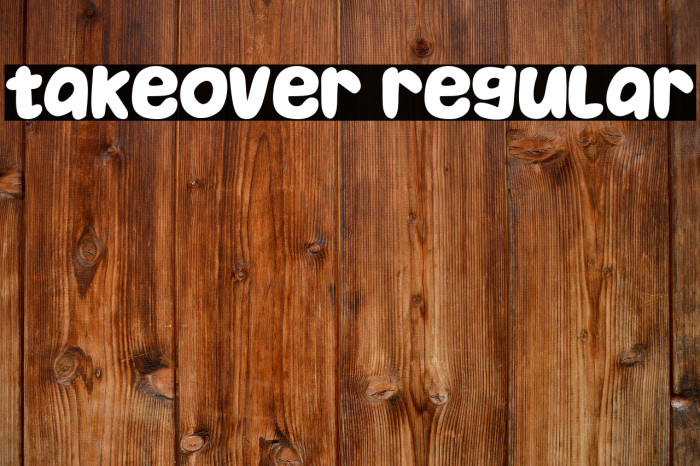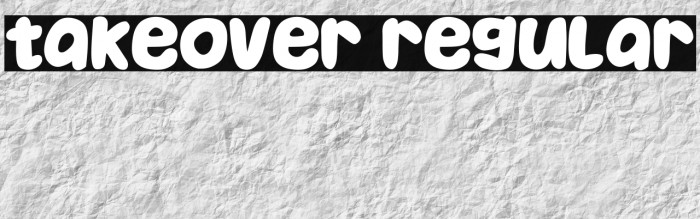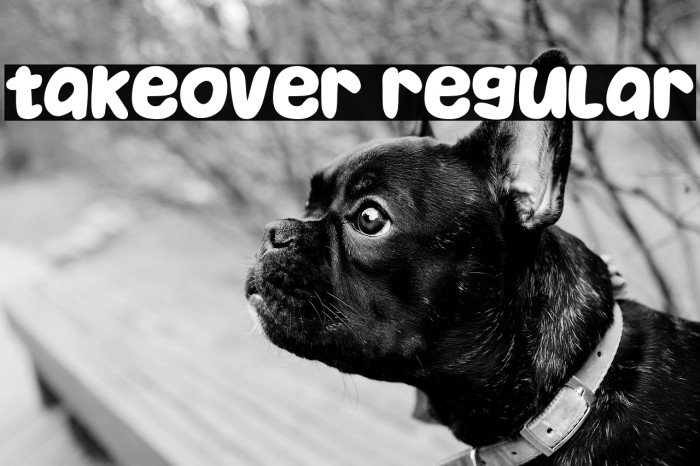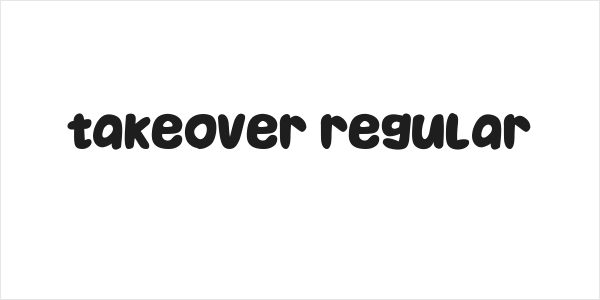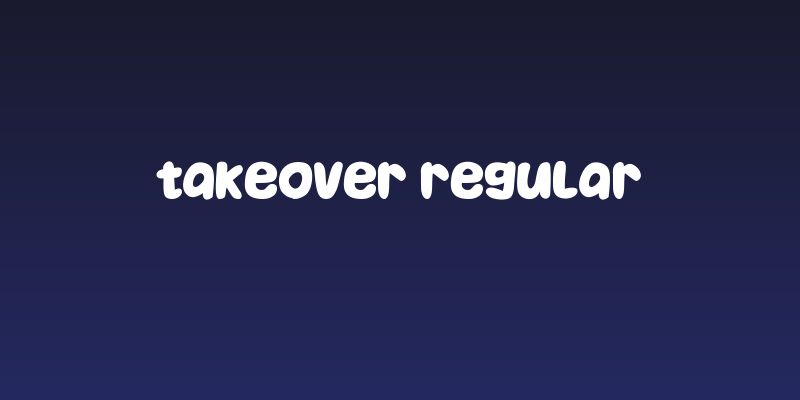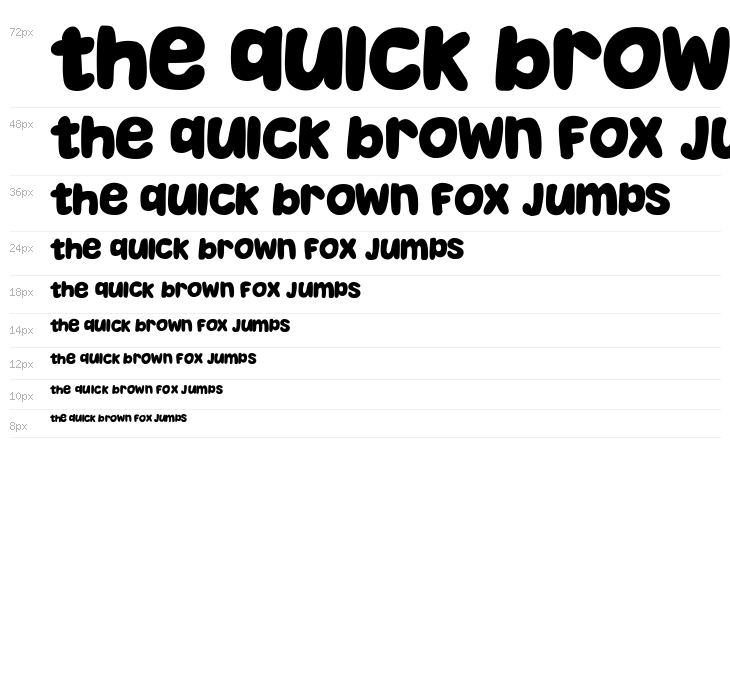
Takeover Regular Font
Takeover Regular Description
This font features a bold, playful style with rounded edges and a bubbly appearance. The characters are thick and uniform, creating a strong visual impact. The overall design is casual and friendly, making it suitable for informal and fun projects. The letters have a consistent weight throughout, with no sharp angles or thin strokes, contributing to its approachable and lively feel. The font's rounded forms and smooth curves give it a modern yet whimsical look, perfect for capturing attention and conveying a sense of joy and creativity.
| Overall Style | Playful, Modern |
| Proposed Projects | Ideal for children's books, playful branding, party invitations, and casual social media graphics. |